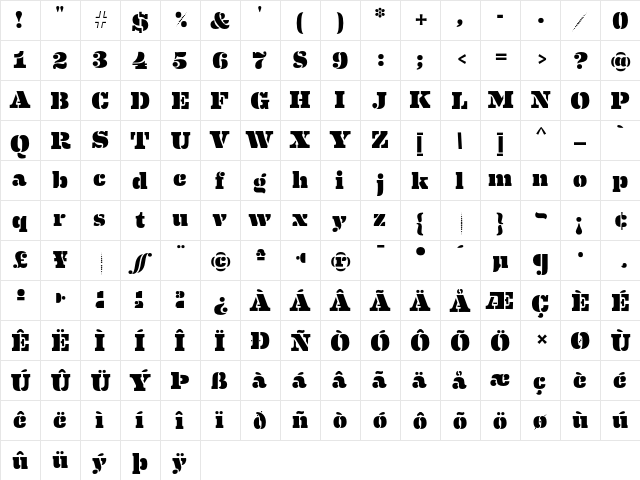
Eames Century Modern Sten Regular
| Foundry | House Industries |
| Designer | Erik van Blokland |
Design Context for Eames Century Modern Sten Typeface
Eames Century Modern Sten offers clean, dependable letterforms without strong stylistic allegiance, making it a practical choice for designers who need flexibility.